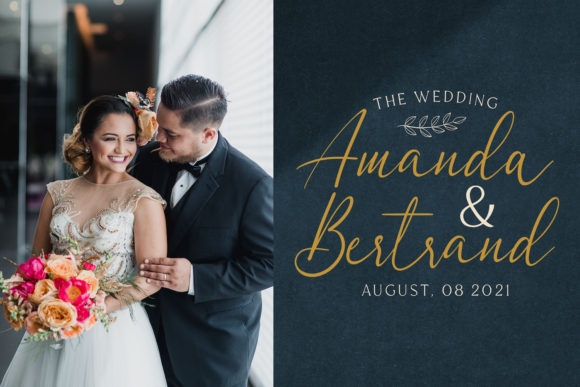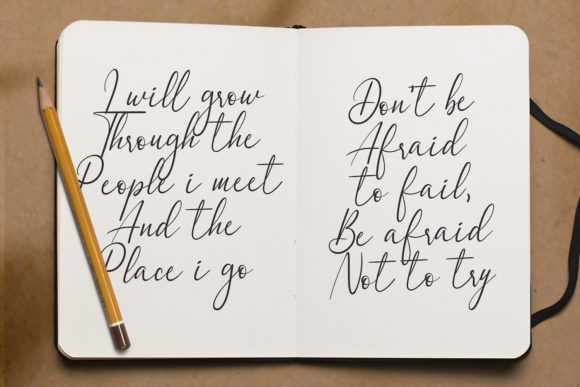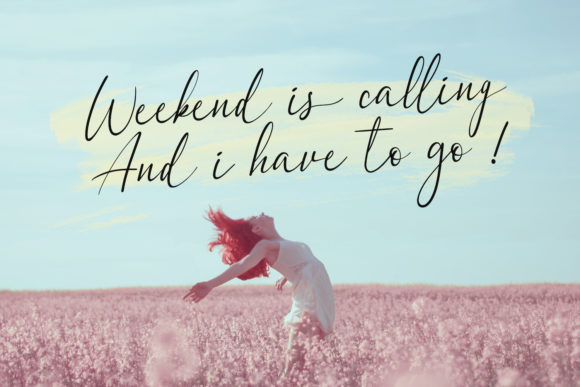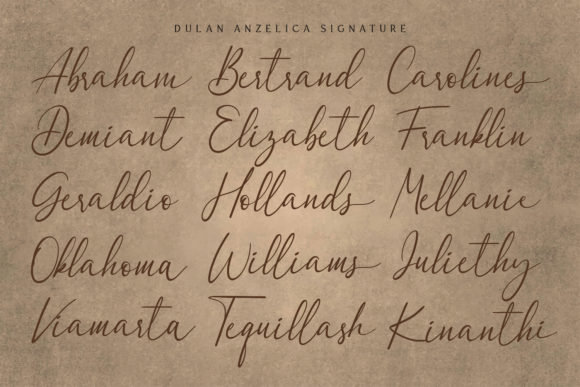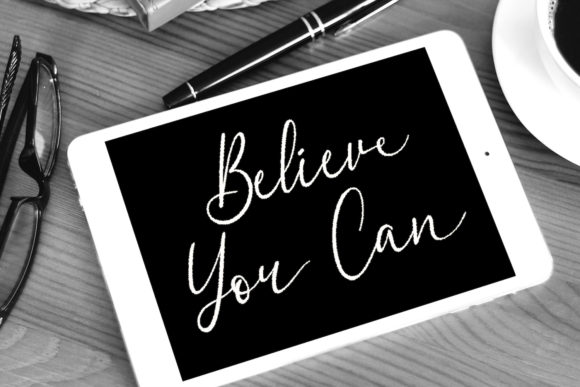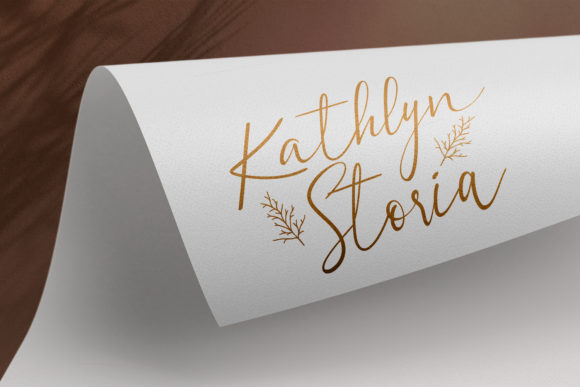
Dulan Anzelica: The Ultimate Script Font for Elegant Designs
In the world of typography, a great font can make all the difference in creating a lasting impression. For designers, crafters, and DIY enthusiasts, finding the perfect font that embodies elegance and sophistication can be a daunting task. However, look no further than Dulan Anzelica, a truly outstanding script font that simplifies elegance into one stunning design.
What is Dulan Anzelica?
Dulan Anzelica is a beautifully crafted script font that exudes refinement and poise. Its flowing lines, intricate details, and classic style make it an ideal choice for a wide range of design projects. Whether you’re creating a logo, branding materials, social media graphics, or crafty DIY projects, Dulan Anzelica is the perfect fit.
Key Features of Dulan Anzelica
- Elegant Script Design: Dulan Anzelica boasts a stunning script design that is both elegant and sophisticated. Its flowing lines and intricate details make it perfect for creating beautiful text-based designs.
- Versatile: This font is incredibly versatile and can be used for a wide range of design projects, from logos and branding to social media graphics and DIY crafts.
- Easy to Read: Despite its ornate design, Dulan Anzelica is surprisingly easy to read, making it perfect for body text and captions.
- Scalable: This font is highly scalable, ensuring that it looks great at any size, from small captions to large headlines.
Uses for Dulan Anzelica
Dulan Anzelica is an incredibly versatile font that can be used for a wide range of design projects. Here are some ideas to get you started:
- Logos and Branding: Create a lasting impression with a custom logo or branding materials that feature Dulan Anzelica.
- Social Media Graphics: Elevate your social media presence with stunning graphics that showcase Dulan Anzelica’s elegant design.
- DIY Crafts: Add a touch of elegance to your DIY crafts, such as handmade cards, invitations, and scrapbooking projects.
- Wedding and Event Design: Make your special day even more memorable with beautiful wedding and event designs that feature Dulan Anzelica.
Tips for Using Dulan Anzelica
To get the most out of Dulan Anzelica, here are some tips to keep in mind:
- Pair with Simple Fonts: Pair Dulan Anzelica with simple fonts to create a striking contrast that adds visual interest to your design.
- Experiment with Colors: Try out different colors and textures to add depth and dimension to your design.
- Use for Headlines and Titles: Use Dulan Anzelica for headlines and titles to create a lasting impression and draw attention to your design.
In conclusion, Dulan Anzelica is a truly outstanding script font that simplifies elegance into one stunning design. Its versatility, readability, and scalability make it perfect for a wide range of design projects, from logos and branding to social media graphics and DIY crafts. With Dulan Anzelica, you can elevate your designs and create a lasting impression that will leave a lasting impact on your audience.